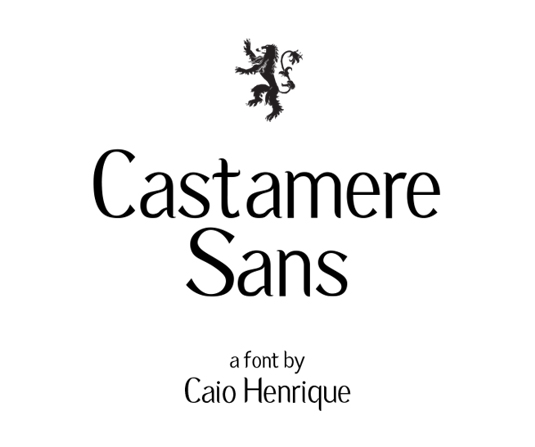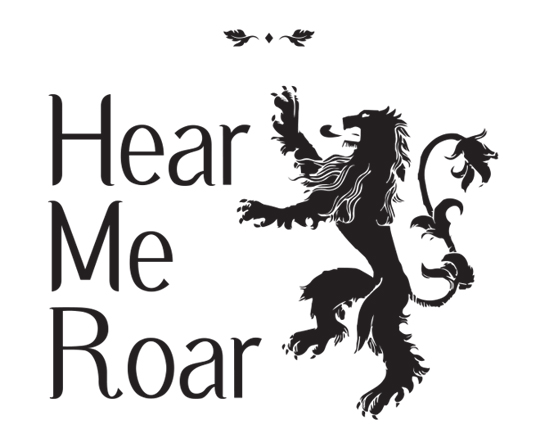
Font of the day: Castamere Sans
Castamere Sans by Caio Henrique
Today's font of choice, Castamere Sans, was created by 20-year-old graphic design student Caio Henrique. "This font made for my typography class at college, inspired on the fantastical world of 'A Song of Ice and Fire' books and TV series," he comments.